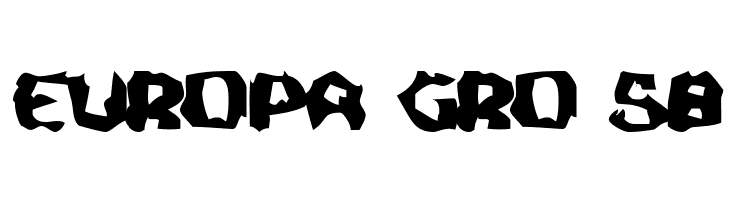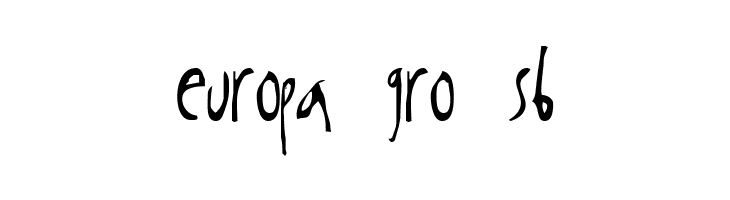
( Fonts by Omega Font Labs )
A bold, jagged font with dynamic and irregular shapes.
( Fonts by Astigmatic One Eye Typographic Institute - Brian J. Bonislawsky - astigmatic.com )
A whimsical, hand-drawn font with irregular, artistic strokes.
A playful, handwritten font with dynamic and irregular letterforms.